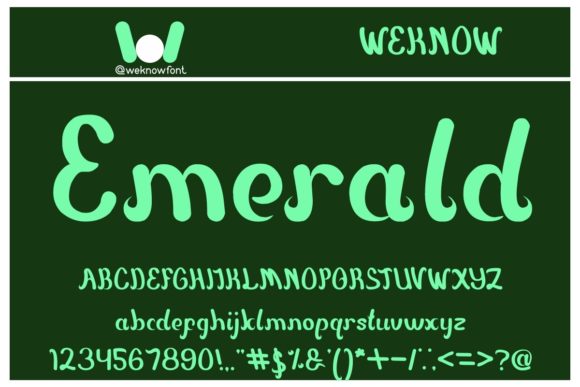
Emerald Font
About Emerald Font
Emerald is an exquisite handwritten font, masterfully designed to become a true favorite. It maintains its classy calligraphic influences while feeling contemporary and fresh. Fall in love with it and bring your projects to the highest levels!